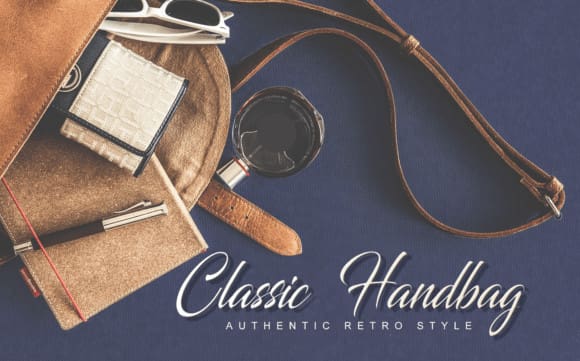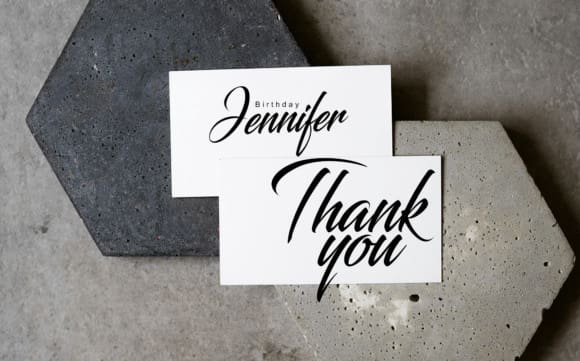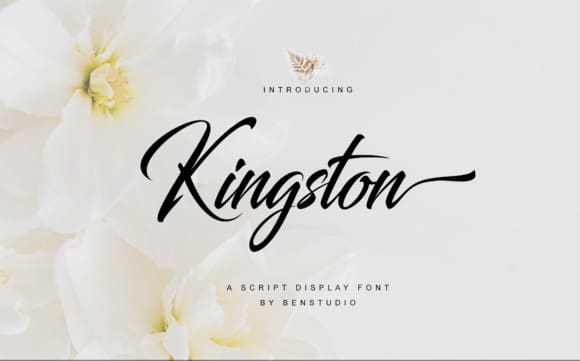
Kingston Font
Kingston Font is a beautiful handwritten font suitable for photography, wedding invitations, beverage bottles, men and women’s fashion, and many more. Add it now to any of your creative projects, and notice how they capture everyone’s attention!